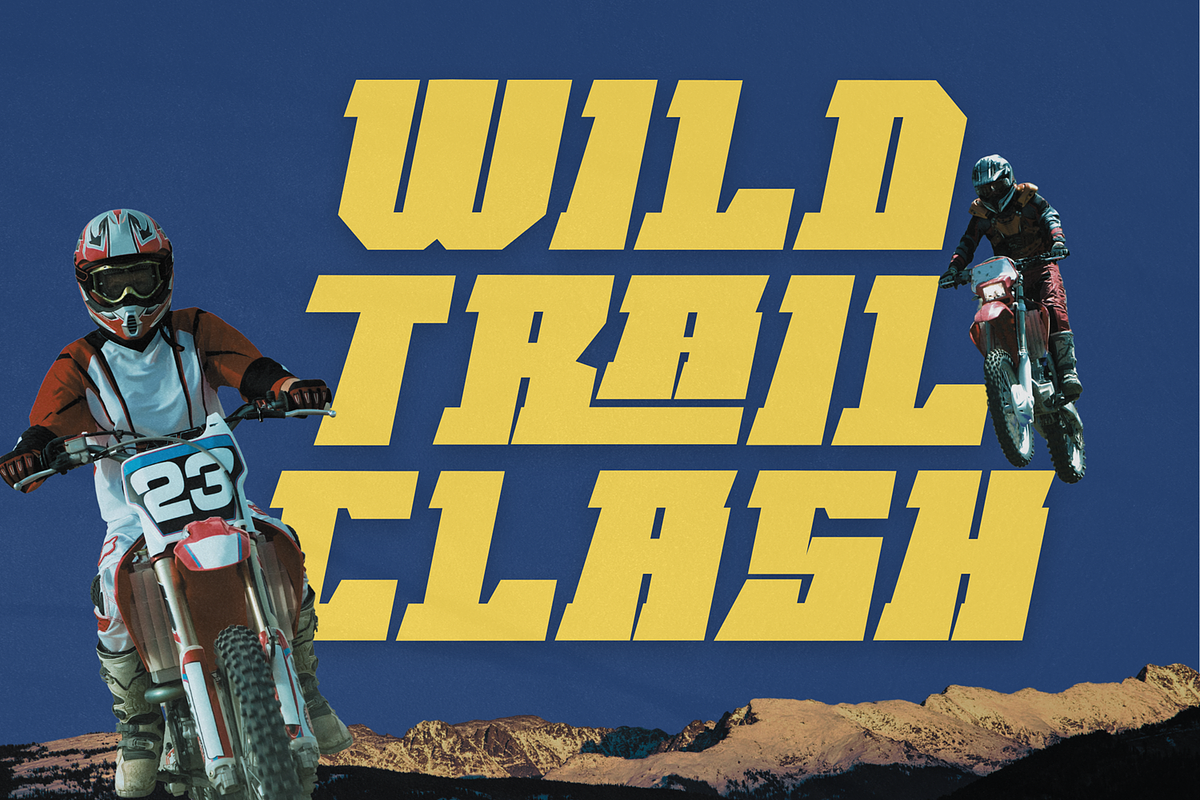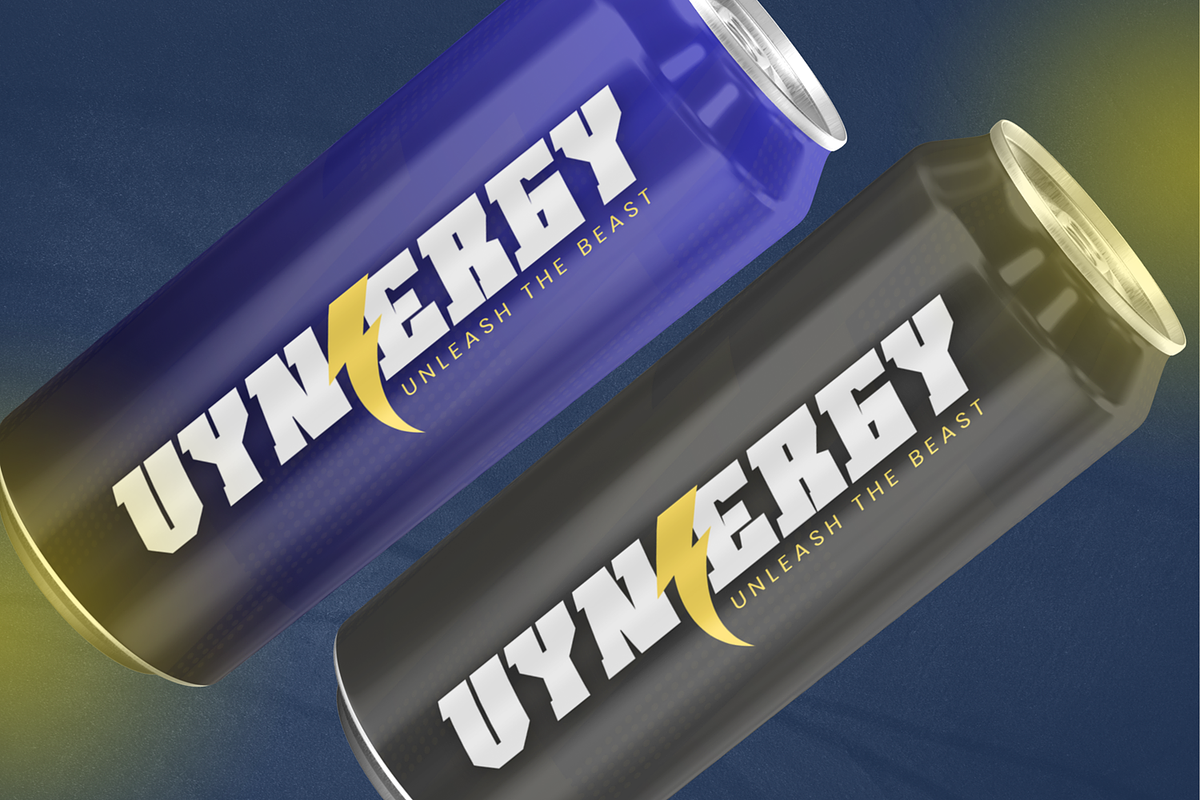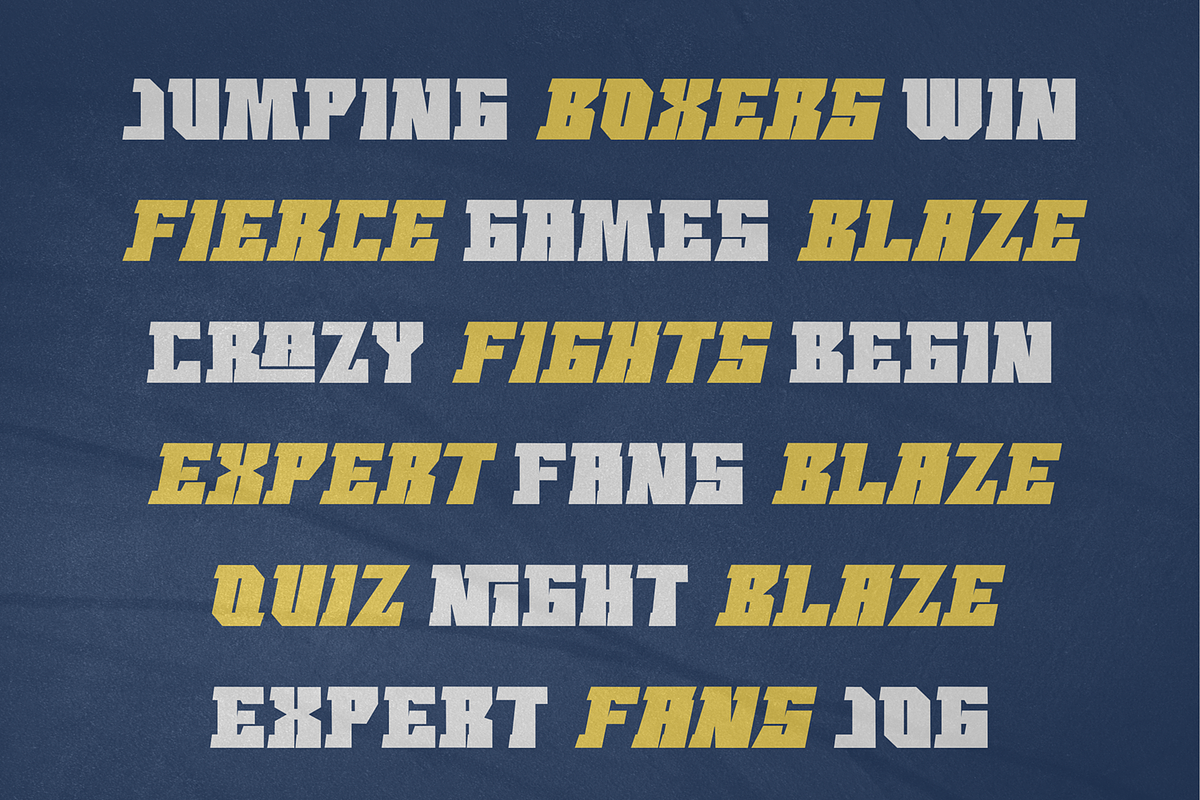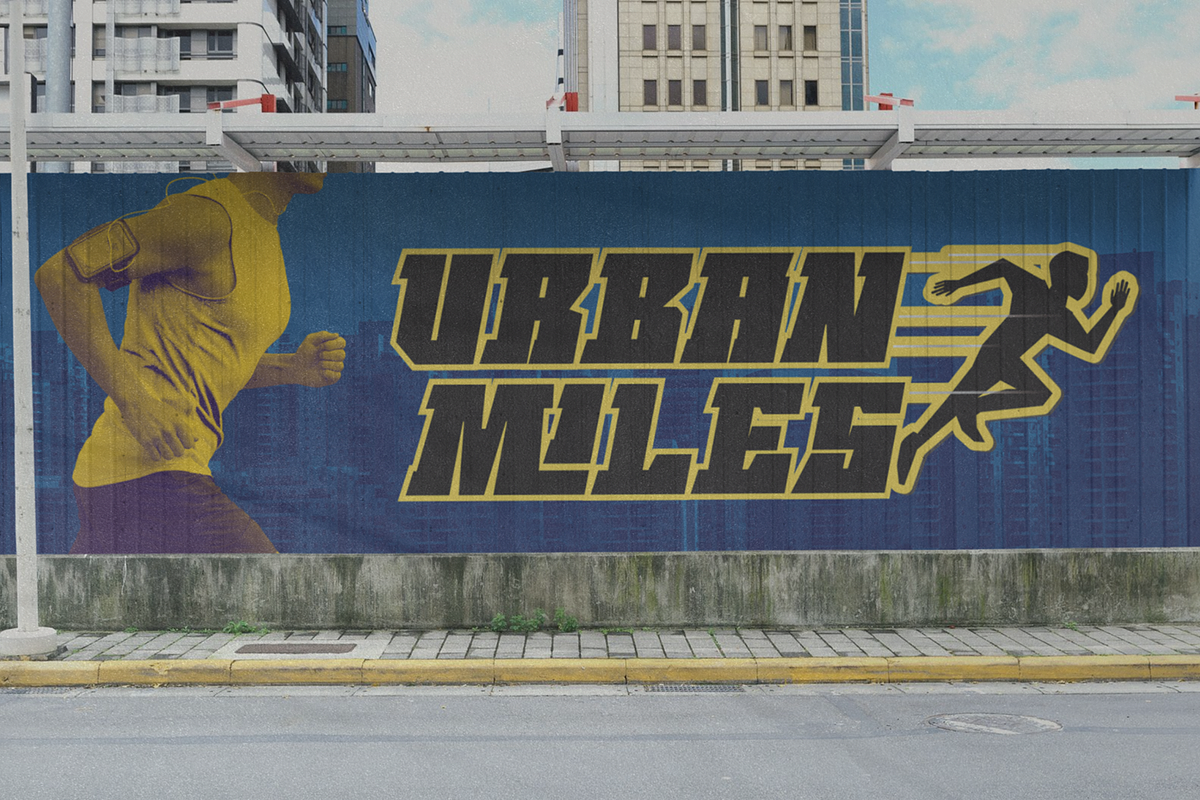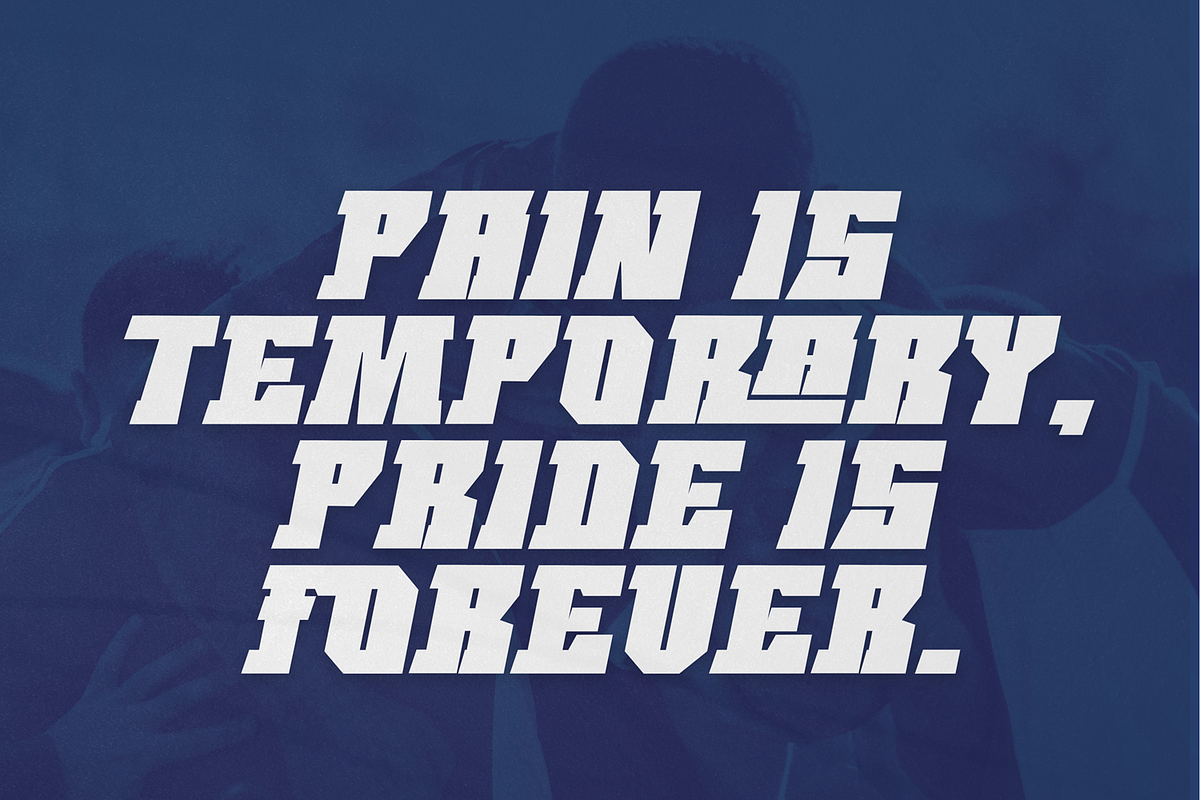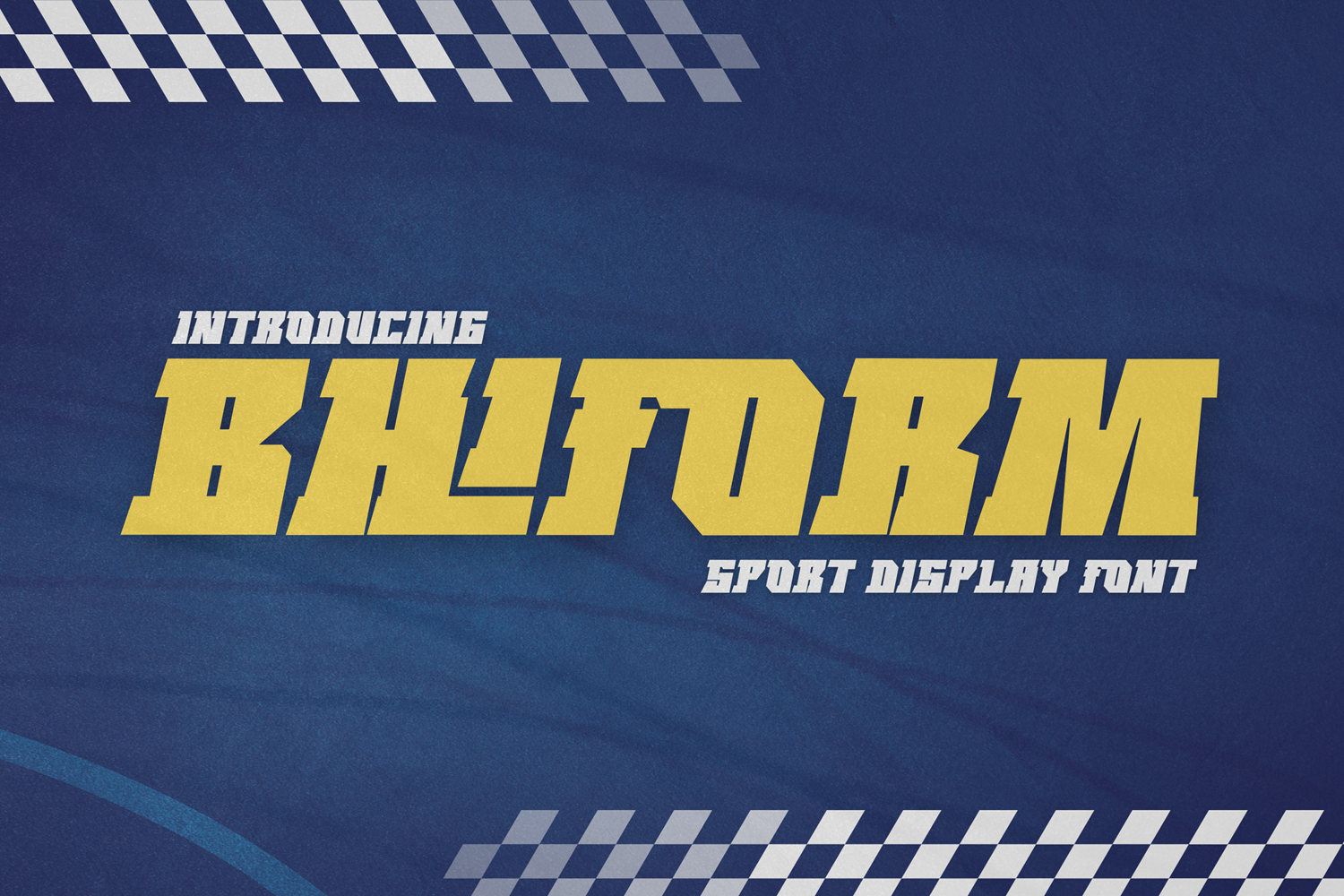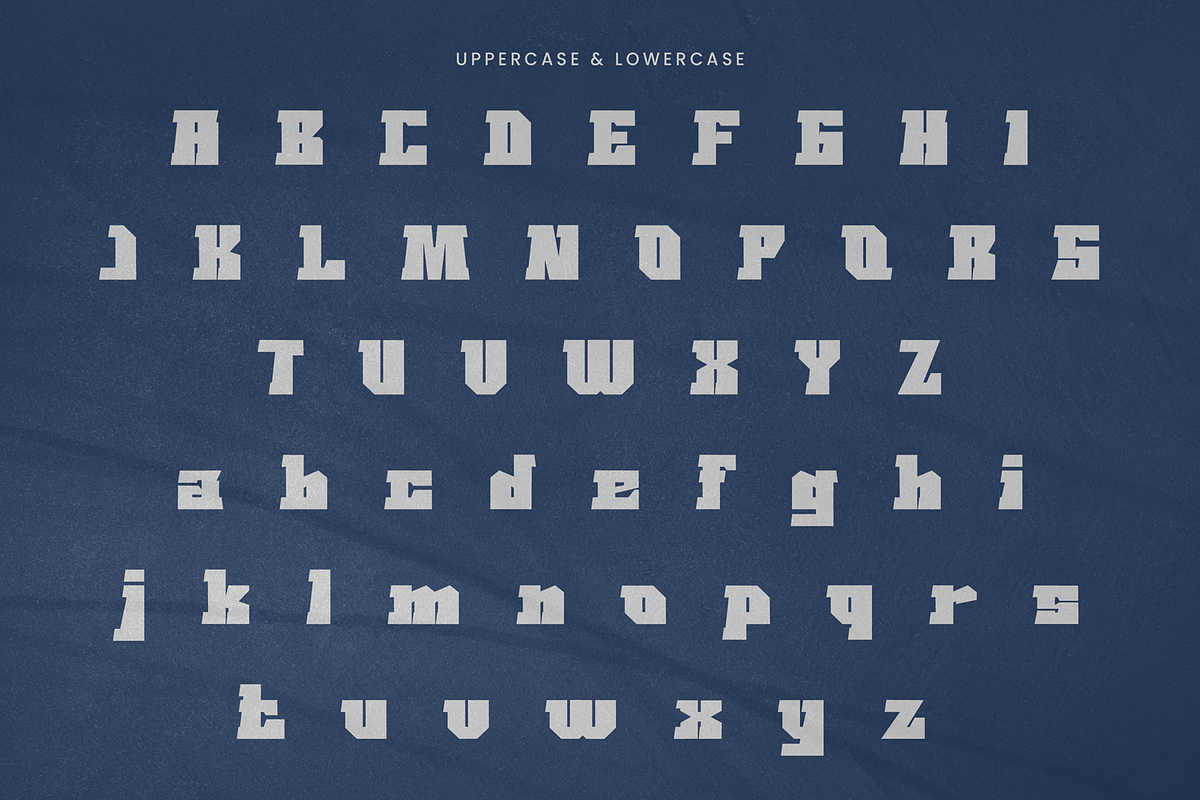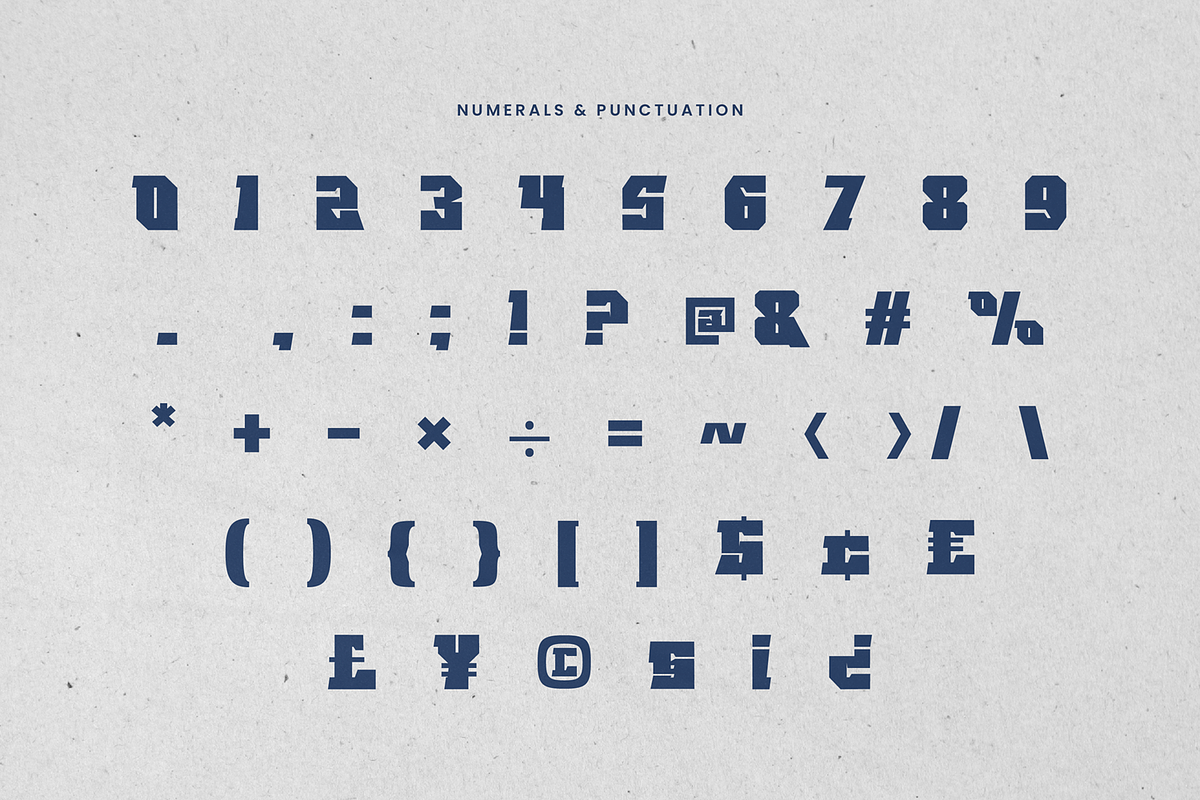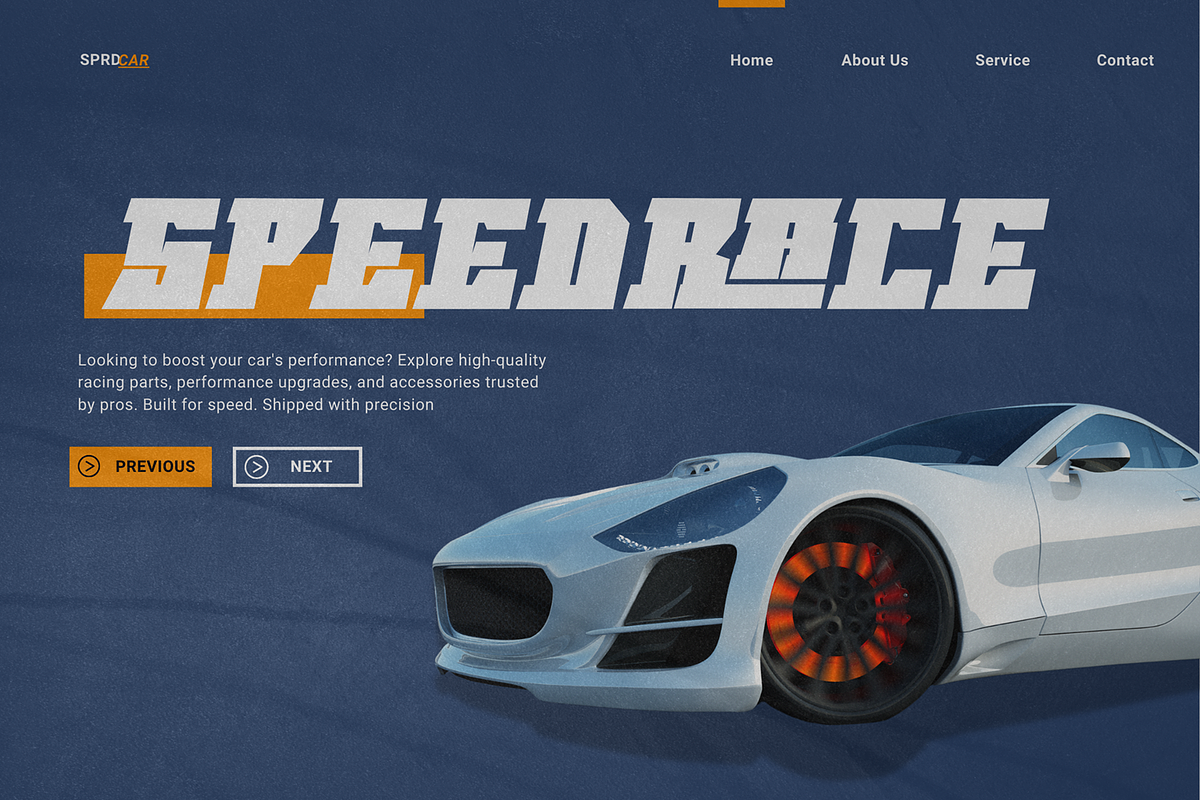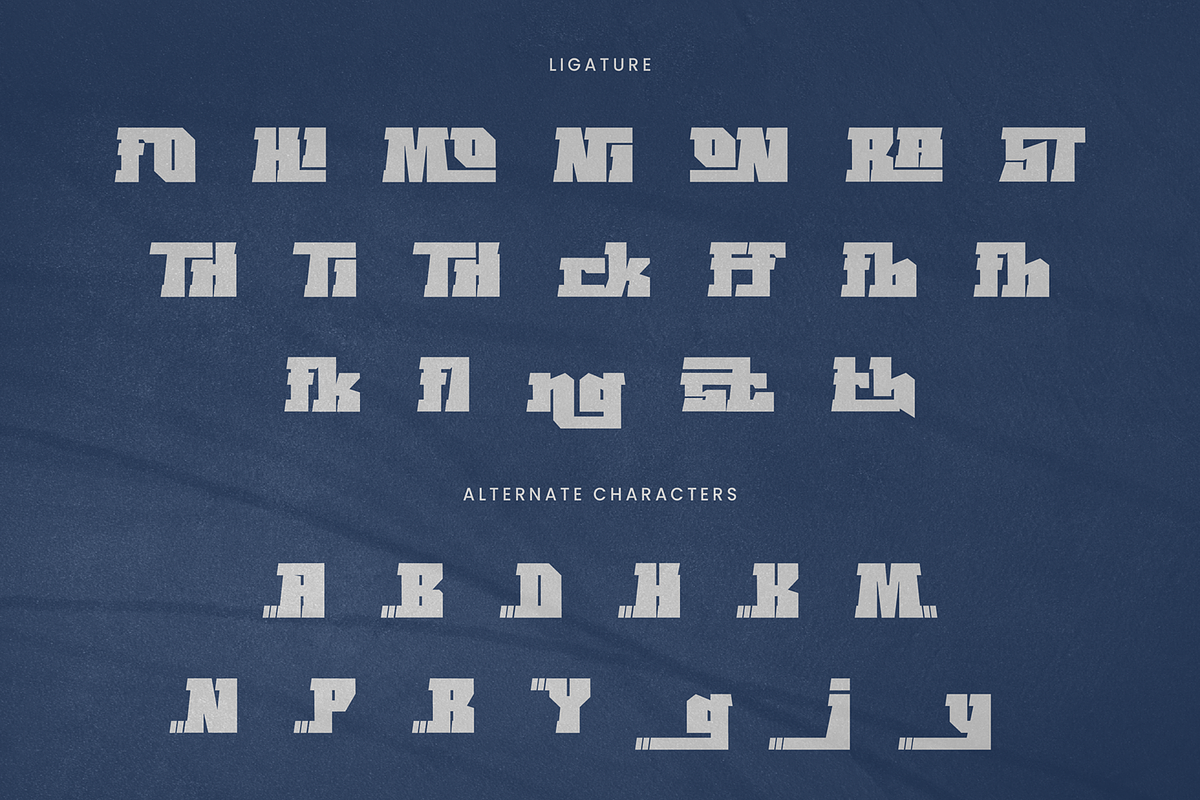
Bhiform – Sport Racing Font
Immerse yourself in the high-octane world of Bhiform, a sport-inspired font that thrives in the fast lane. Its anatomy is crafted with bold strokes, sharp corners, and potent lines, embodying the adrenaline-fueled ethos of motorsports. Its vigorous stance amplifies energy through your typography, making Bhiform the go-to choice for race event promotions, automotive identity creations, and action-driven headlines. Use Bhiform to elevate your design for raceway memorabilia, thrilling video games, or custom vehicle decals.